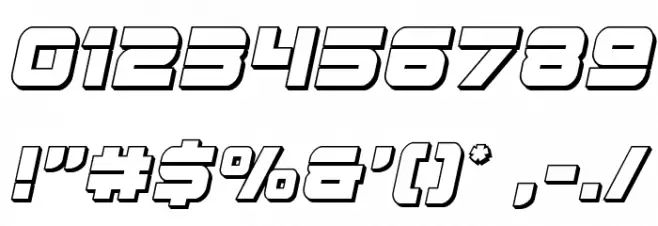
Edge Racer 3D Italic Font
Edge Racer 3D Italic Description
This font features a bold, futuristic design with a 3D effect that gives it a dynamic and modern appearance. The characters are outlined, creating a sense of depth and movement, which is enhanced by the italic slant. The geometric shapes and sharp angles contribute to its edgy and tech-inspired look, making it ideal for projects that require a contemporary and eye-catching typeface. The uppercase and lowercase letters maintain a consistent style, while the numerals and special characters complement the overall aesthetic.
A bold, 3D italic font with a futuristic and dynamic design from Sci-fi fonts.
- Proposed Projects: Ideal for video game titles, tech branding, sci-fi posters, and automotive advertisements.